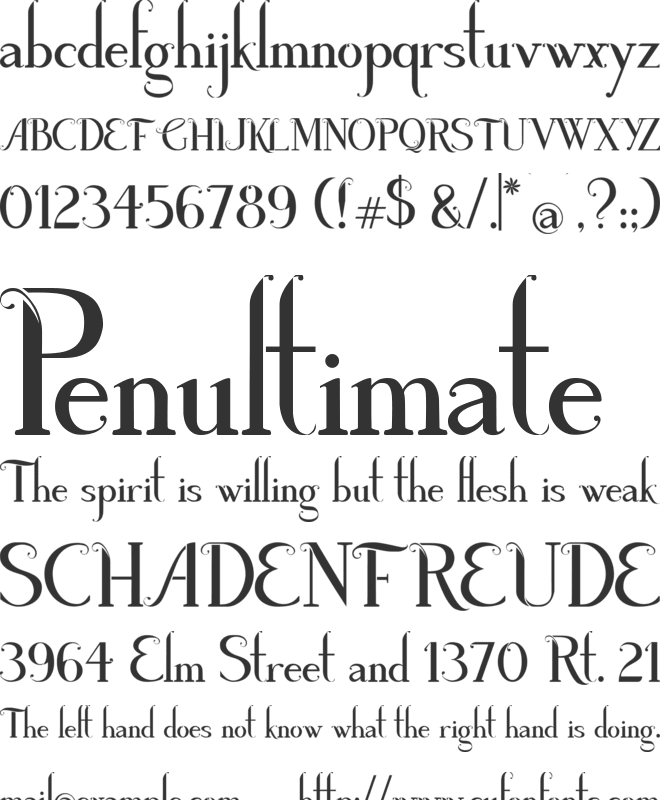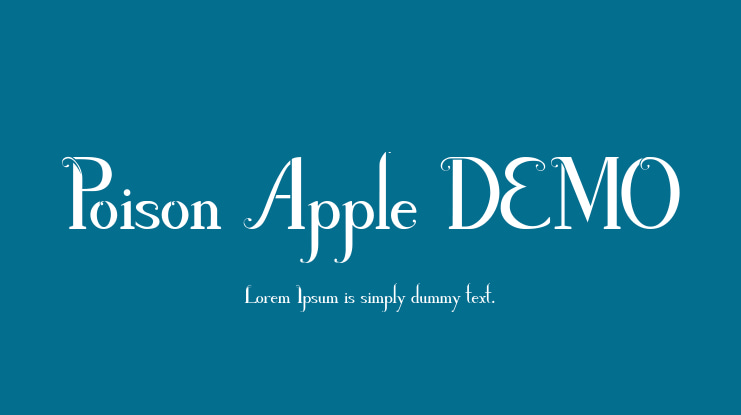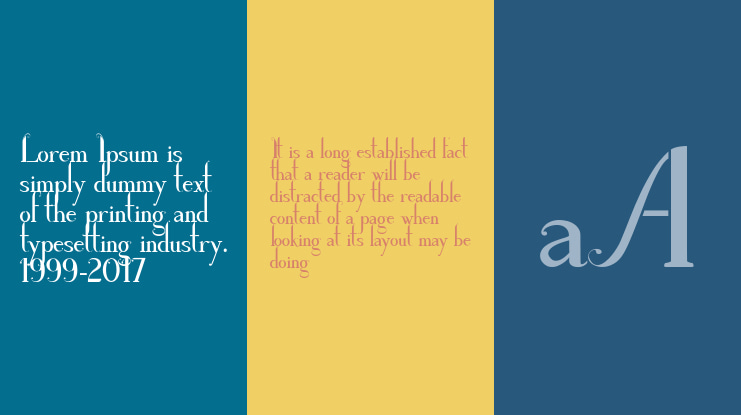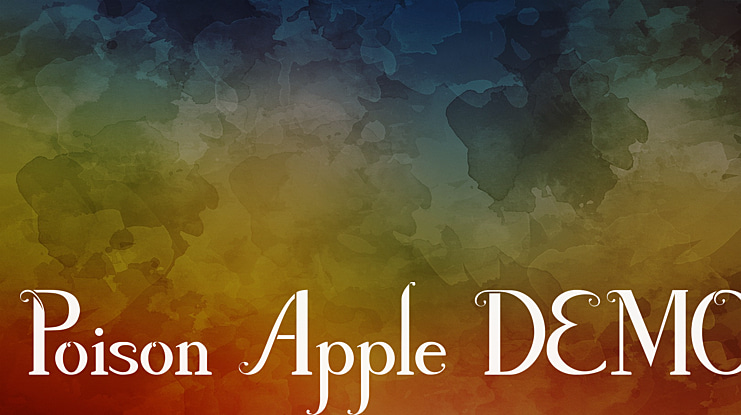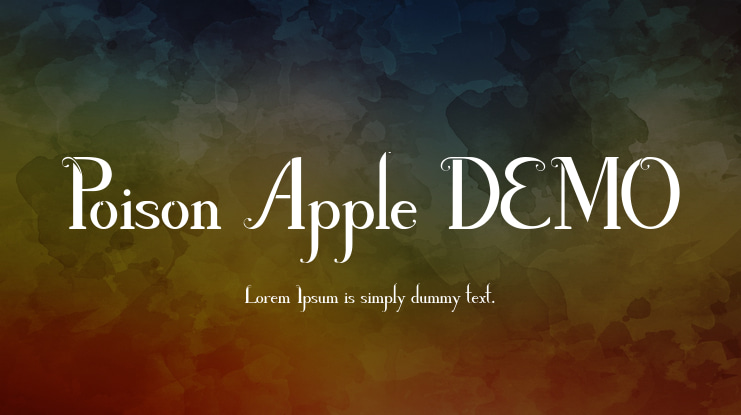
Poison Apple DEMO Font
A font family in Regular, Bold, Italic, Poison Apple features swashes, serifs, Stylistic Alternates, (some) ligatures, frames, ornaments & fleurons, plus Words.